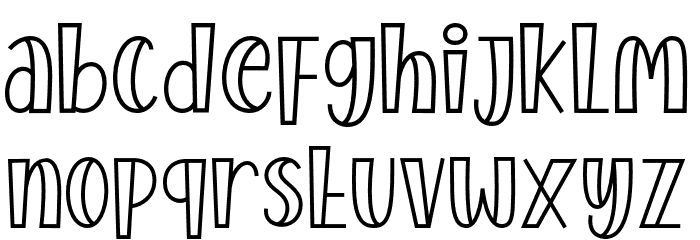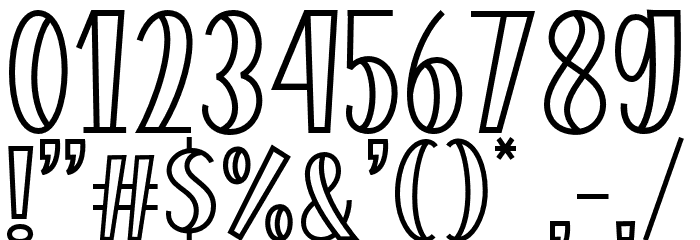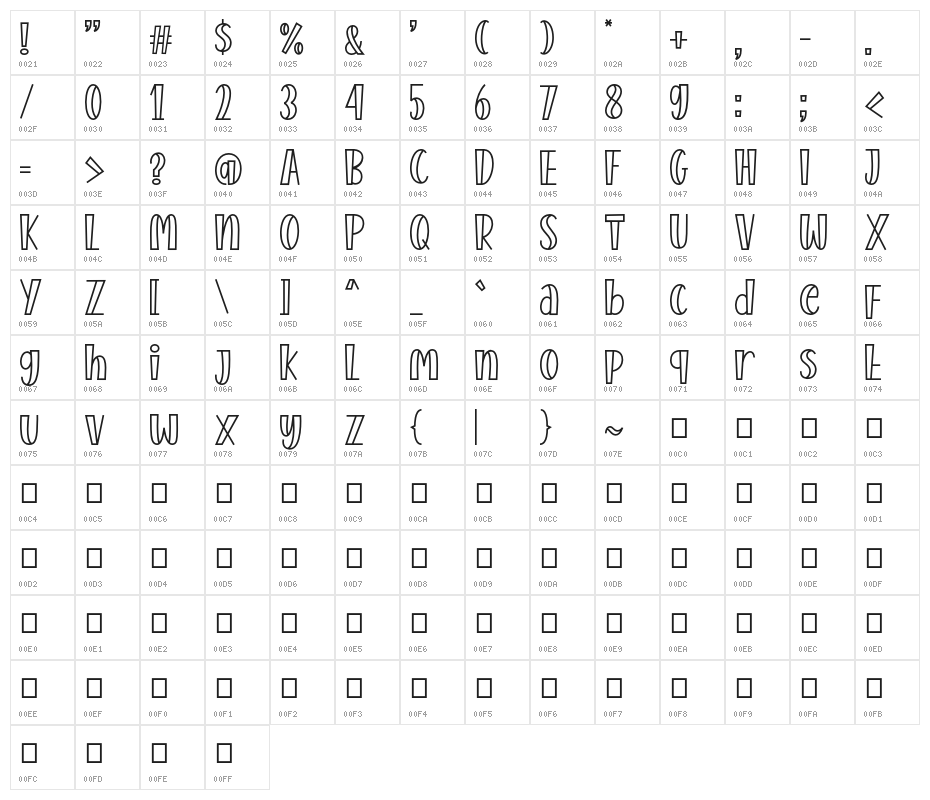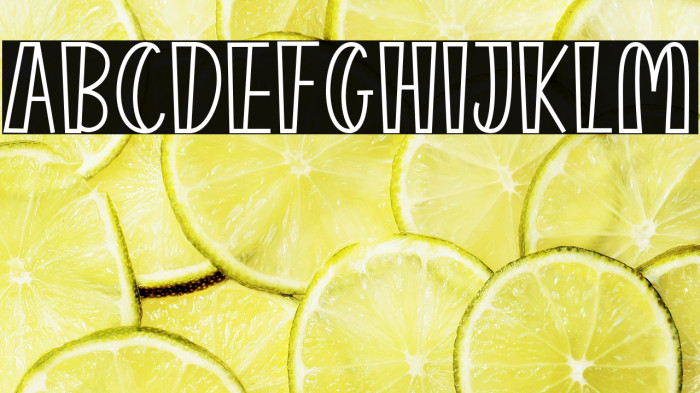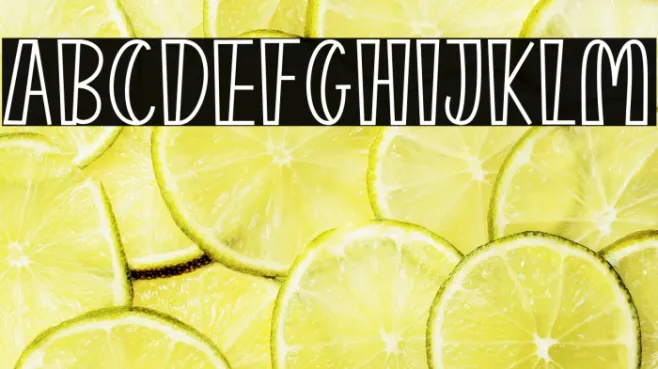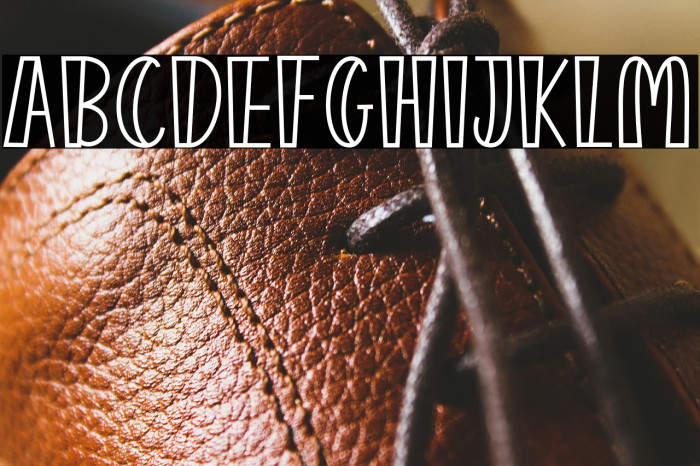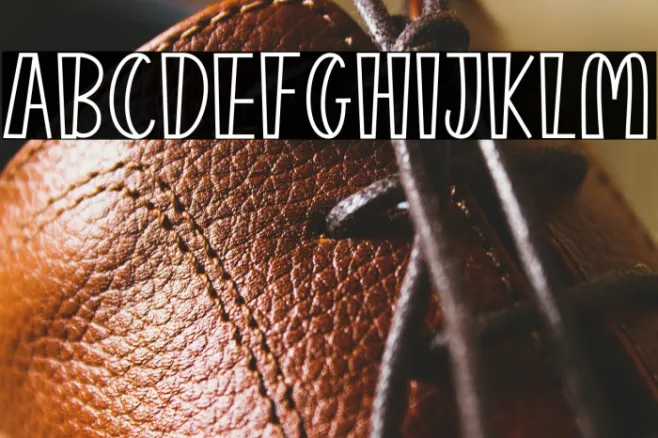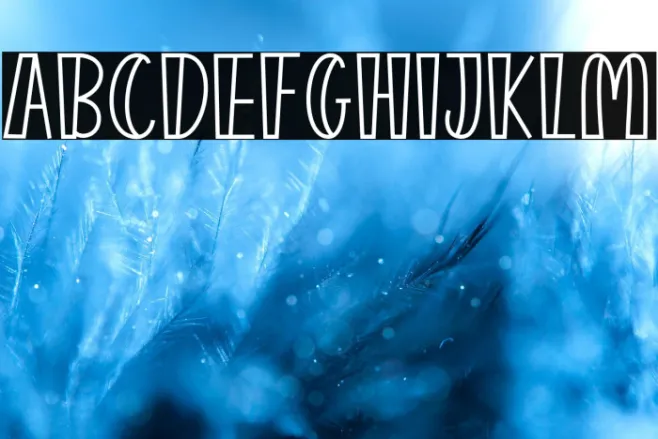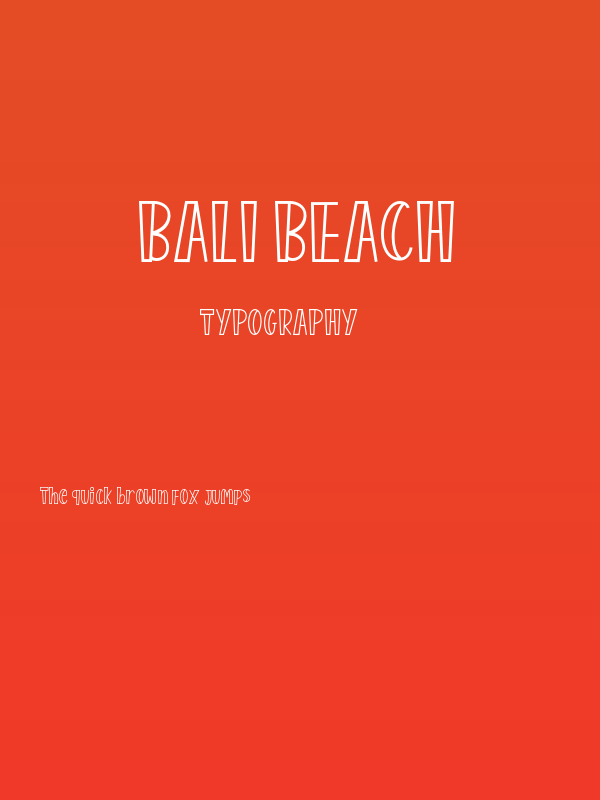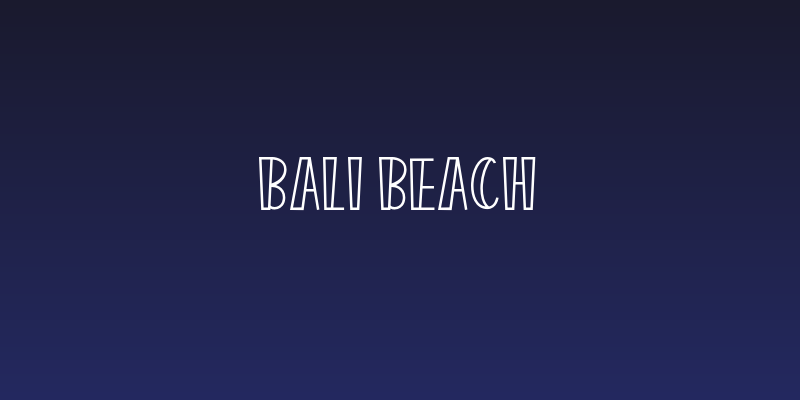
Bali Beach Font
This font features a playful and whimsical design with a hand-drawn aesthetic. The letters are tall and narrow with a slight slant, giving them a dynamic and lively appearance. The strokes are consistent in width, providing a uniform look across all characters. The uppercase and lowercase letters maintain a cohesive style, while the numbers and special characters blend seamlessly with the overall design. The font's unique charm makes it suitable for creative and informal projects.
A playful, hand-drawn font with tall, narrow letters and a whimsical style.
- Font: Bali Beach
- Proposed Projects: Ideal for children's books, greeting cards, playful branding, and creative posters.
- Overall Style: Playful, Whimsical